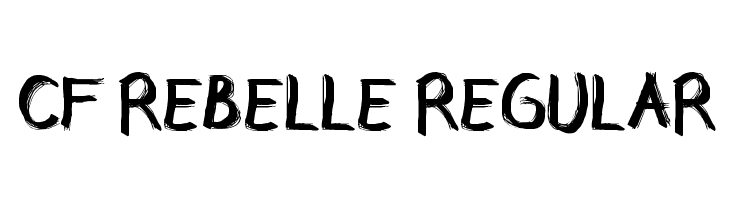
A playful, handwritten-style font with bold, rounded characters and unique flourishes.
A bold, modern font with clean lines and geometric shapes.
A medical-themed pictogram dingbat font with bold, clear healthcare icons.
A bold, distressed font with a gritty, vintage appearance.
A bold, 3D geometric font with shadow effects and textured lines.
A bold, monospaced font with a vintage, typewriter-like appearance.
A bold, high-contrast serif font with a classic and robust style.
A whimsical and playful font with curly embellishments and decorative flair.
A whimsical, curly font with playful embellishments and a decorative style.
A playful, handwritten cursive font with fluid strokes.
A playful, hand-drawn font with bold, exaggerated strokes and a whimsical style.
A playful, hand-drawn font with a textured, chalk-like appearance.
A playful and whimsical font with quirky, irregular letterforms.
Cartoonish sci-fi dingbat font with aliens, robots, and spaceships.
A whimsical font with playful curls and consistent stroke width.
An elegant script font with intricate curls and flourishes.
A playful, curly font with a hand-drawn, whimsical style.
A playful, hollow, hand-drawn font with a whimsical and decorative style.
A playful, hollow, italic script font with a whimsical and dynamic style.
A playful, handwritten italic font with a whimsical style.
A playful and whimsical font with curly, flowing letterforms.
A decorative font with ornate curls and swirls, perfect for artistic projects.
An ornate Art Nouveau font with intricate curves and floral motifs.
A whimsical and playful font with curly, decorative elements and bold weight.